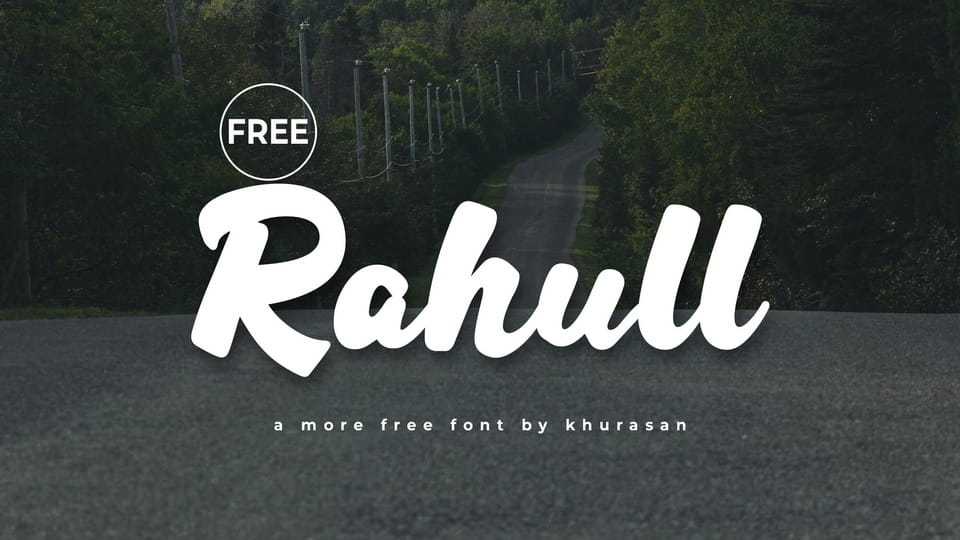
Download Rahull font, a smooth script typeface with a natural handwritten style and flowing curves. Its soft strokes and connected letterforms create an elegant and friendly appearance